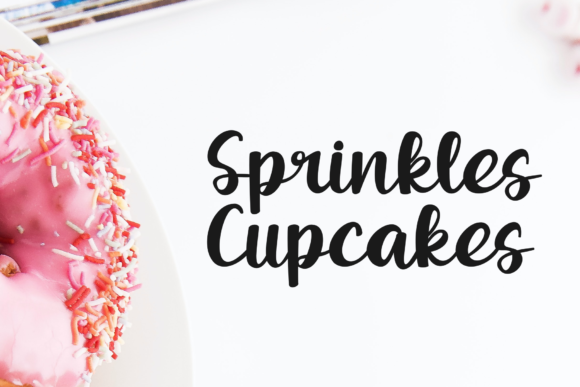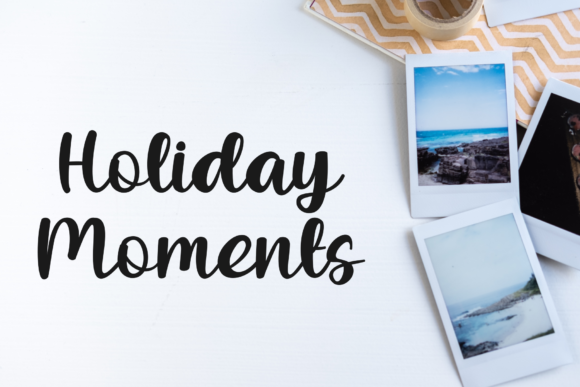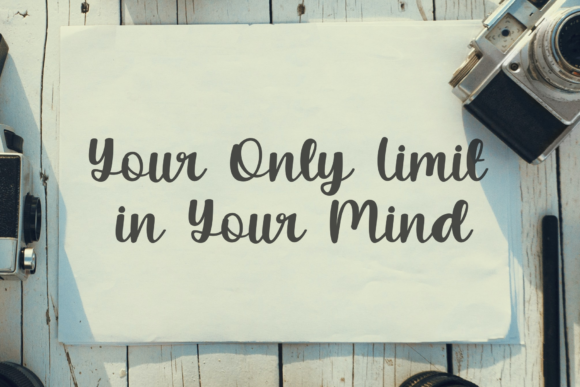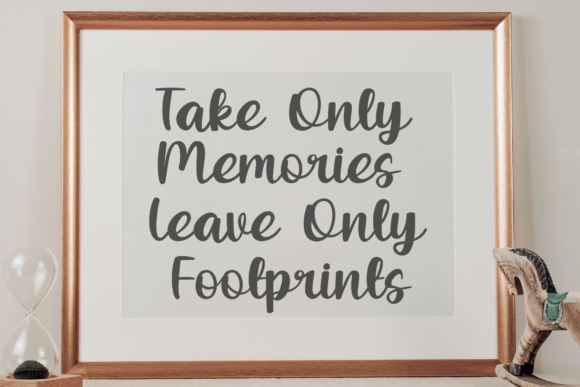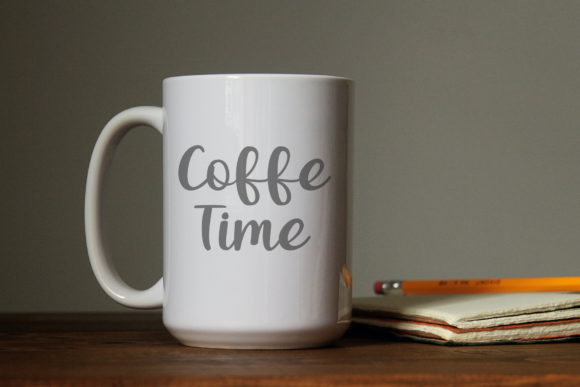
About Sprinkles Cupcakes Font
Sprinkles Cupcakes is a cute and simple handwritten font that you can use for all chalkboard quotes or teaching material! Its authentic look will add a personal and realistic feel to your designs. This font is PUA encoded, which means you can access all of the glyphs and swashes with ease!